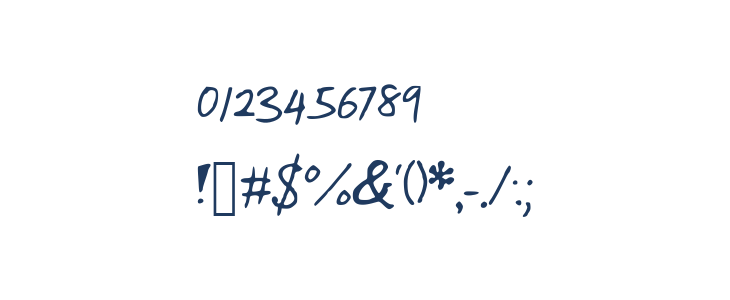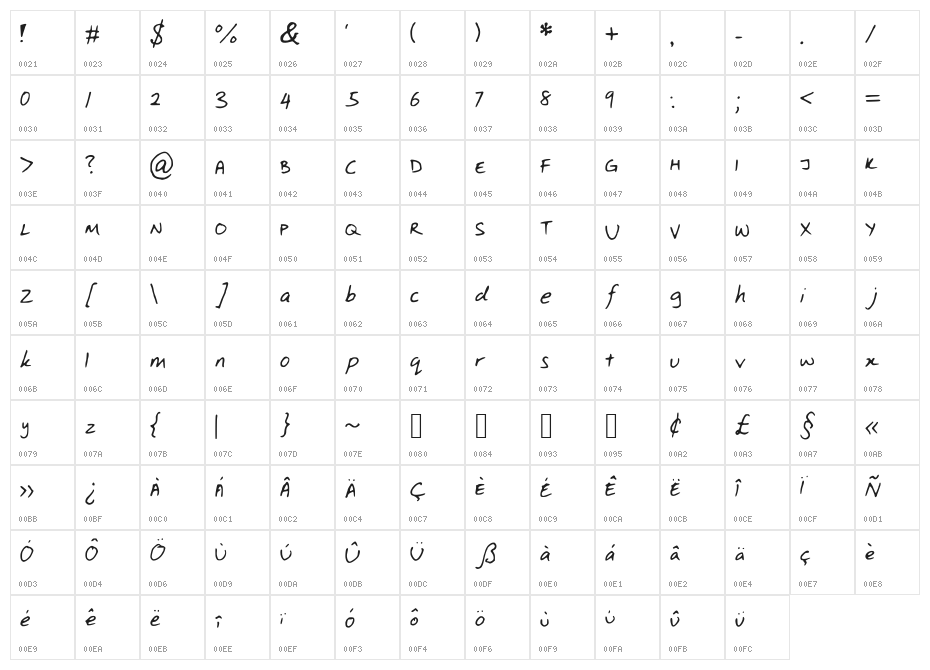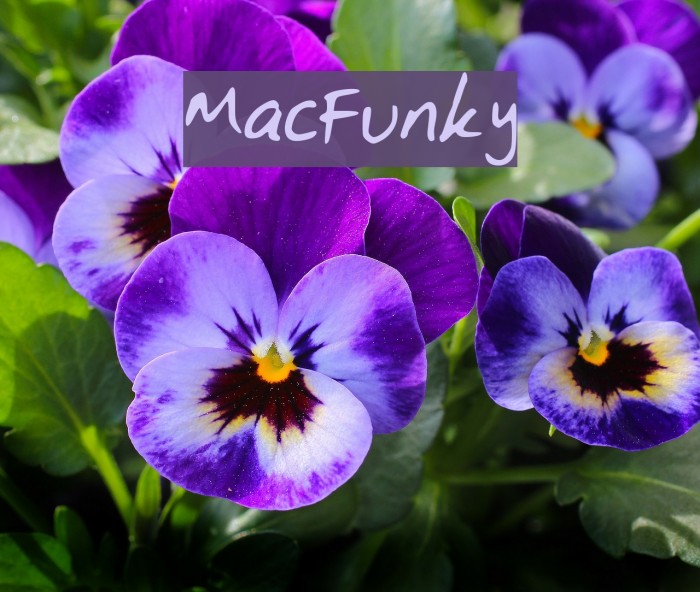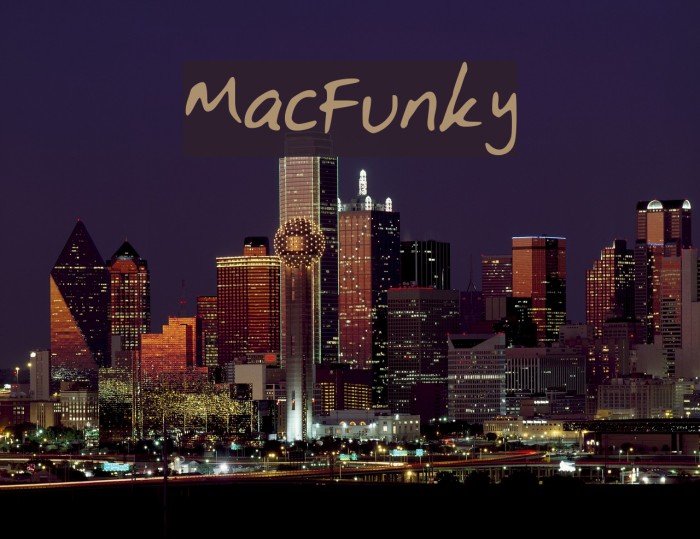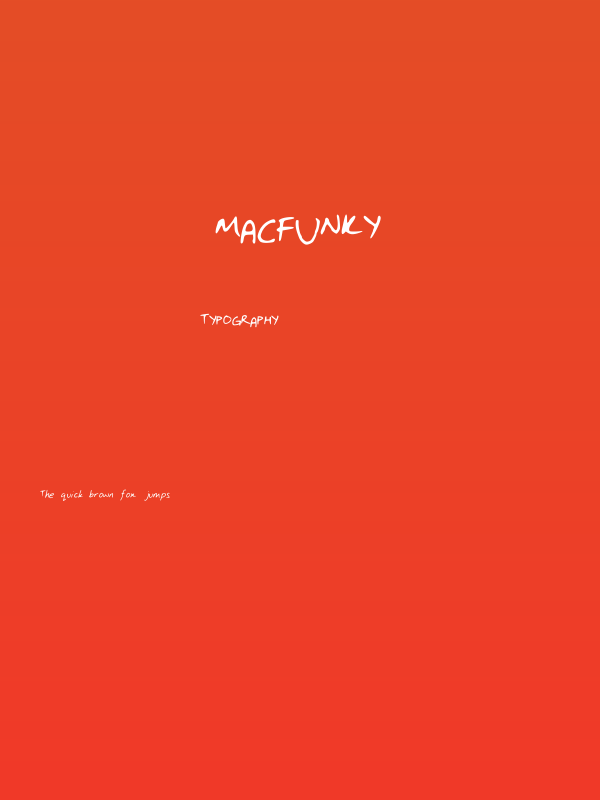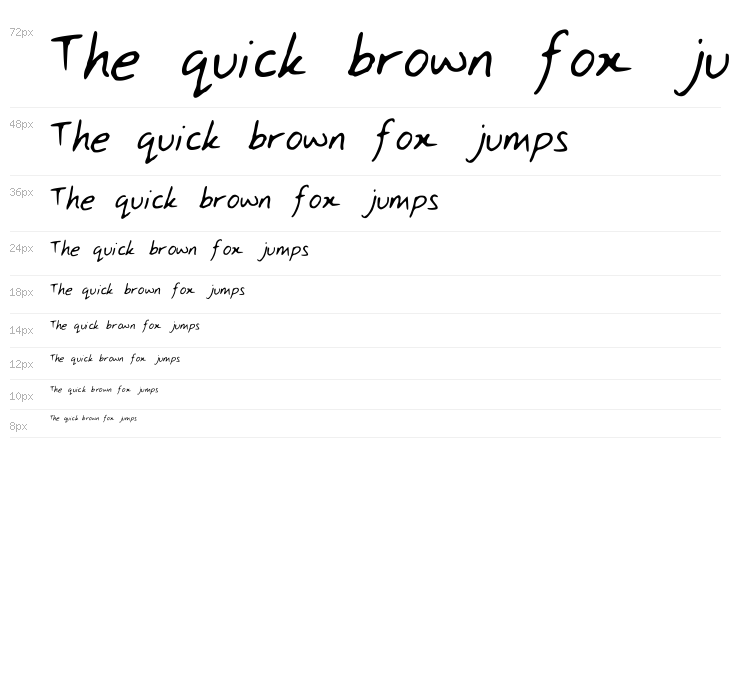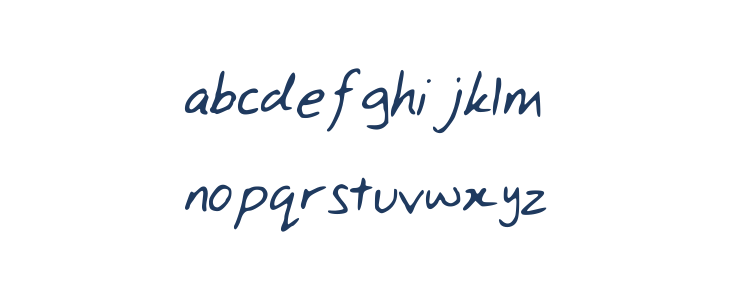
MacFunky Font
MacFunky Description
This font exudes a playful and casual handwritten style, characterized by its smooth and flowing curves. The letters have a natural, organic feel, reminiscent of a personal note or a quick sketch. The uppercase letters maintain a consistent height, while the lowercase letters vary slightly in size, adding to the informal charm. The numbers are clear and legible, matching the overall aesthetic. Special characters are included, maintaining the same whimsical style. This font is ideal for projects that require a personal touch or a relaxed, friendly vibe.
| Overall Style | Casual, Playful |
| Use Case | Headlines, Informal text, Creative projects |
| Proposed Projects | Greeting cards, personal blogs, informal invitations, children's books, and creative social media graphics. |